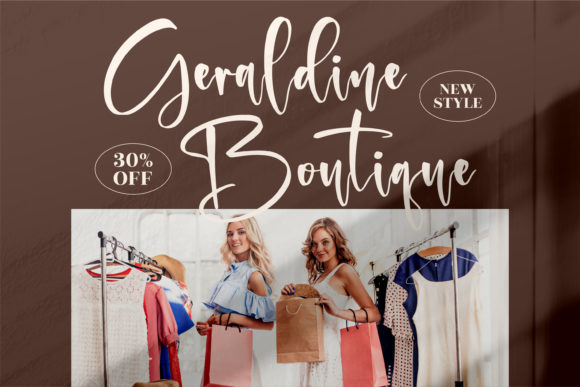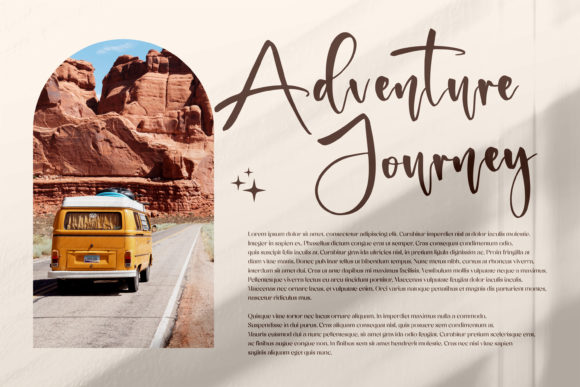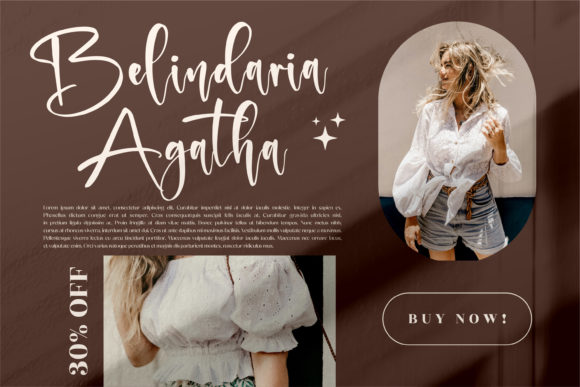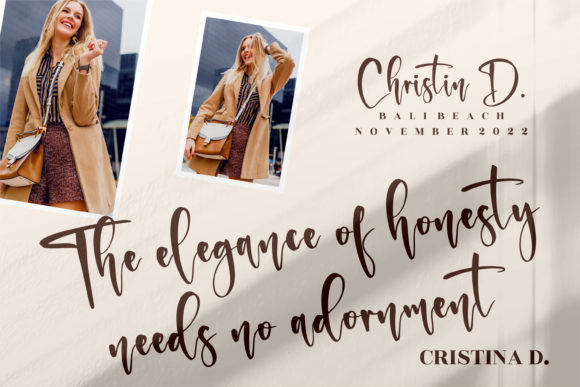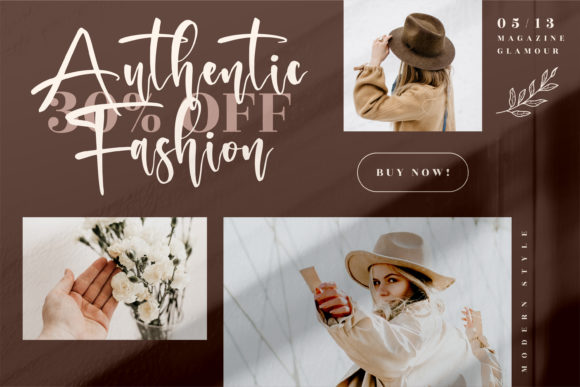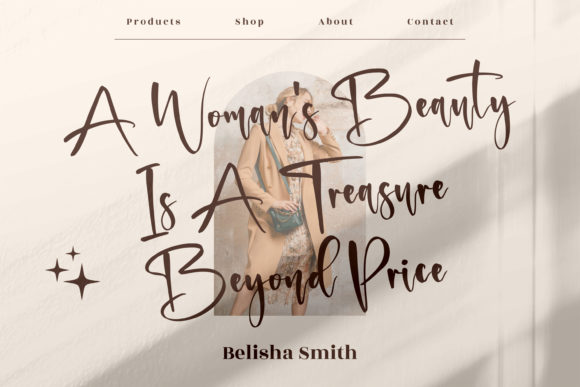
Introducing Emelyday Font: The Epitome of Elegance and Sophistication
Are you on the hunt for a font that exudes elegance, sophistication, and romance? Look no further than Emelyday Font, a stunning script font that is sure to capture your heart. With its thin lettering and graceful curves, Emelyday is the perfect choice for designers and crafters looking to add a touch of luxury to their projects.
The Beauty of Emelyday Font
Emelyday Font is a masterpiece of typographic design, boasting a unique and ravishing style that is sure to turn heads. Its thin lettering and flowing curves evoke a sense of romance and whimsy, making it an ideal choice for a variety of creative projects. Whether you’re designing wedding invitations, stationery, social media posts, or any other type of visual content, Emelyday Font is sure to add a touch of sophistication and glamour.
What Makes Emelyday Font So Special?
So, what sets Emelyday Font apart from other script fonts on the market? For starters, its PUA (Private Use Area) encoding makes it incredibly easy to access all glyphs and swashes, allowing you to unleash your creativity and experiment with different design elements. This means that you can create truly unique and eye-catching designs that showcase your personal style.
With Emelyday Font, the creative possibilities are endless. Here are just a few ideas to get you started:
- Wedding invitations: Create stunning wedding invitations that set the tone for a beautiful and memorable day.
- Stationery: Design gorgeous stationery, including letterheads, notecards, and journals, that showcase your personal style.
- Social media posts: Add a touch of elegance to your social media posts and make them stand out from the crowd.
- Signage: Create eye-catching signage for events, businesses, or personal projects that exudes sophistication and glamour.
Why Designers and Crafters Love Emelyday Font
Emelyday Font has quickly become a favorite among designers and crafters, and for good reason. Here are just a few reasons why:
- Elegant and sophisticated: Emelyday Font adds a touch of luxury to any design project.
- Easy to use: With PUA encoding, accessing glyphs and swashes is a breeze.
- Versatile: Emelyday Font can be used for a wide range of creative projects, from wedding invitations to social media posts.
- Unique: Emelyday Font’s ravishing style is sure to turn heads and set your designs apart from the crowd.
Tips for Getting the Most Out of Emelyday Font
To get the most out of Emelyday Font, here are a few tips to keep in mind:
- Experiment with different design elements: With PUA encoding, you have access to a wide range of glyphs and swashes. Don’t be afraid to experiment and try new things.
- Pair with complementary fonts: Emelyday Font pairs beautifully with a variety of fonts. Experiment with different combinations to find the perfect match for your design.
- Use it sparingly: While Emelyday Font is stunning on its own, it can also be used sparingly to add a touch of elegance to your designs.
In conclusion, Emelyday Font is a true gem in the world of typography. With its elegant and sophisticated design, PUA encoding, and endless creative possibilities, it’s no wonder that designers and crafters are falling in love with this beautiful script font. Whether you’re designing wedding invitations, stationery, social media posts, or any other type of visual content, Emelyday Font is sure to add a touch of luxury and glamour. So why wait? Fall for Emelyday Font today and take your designs to the next level!